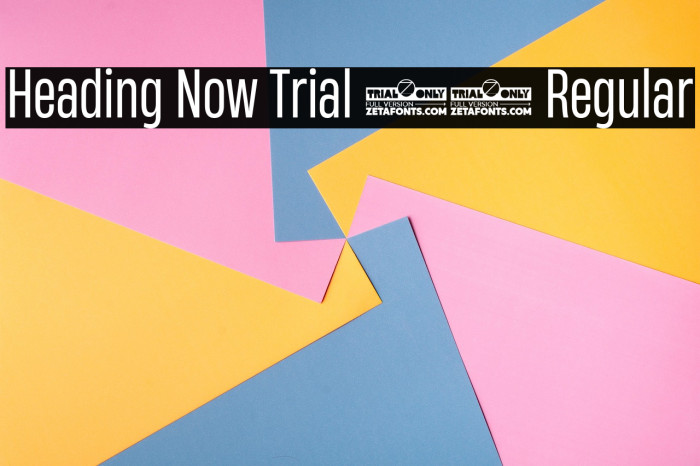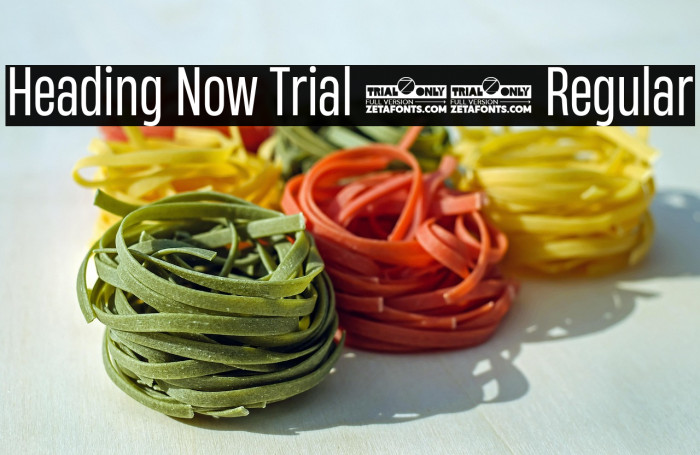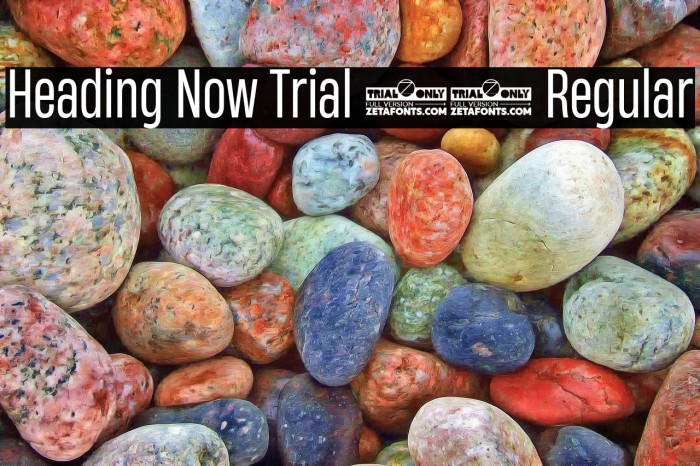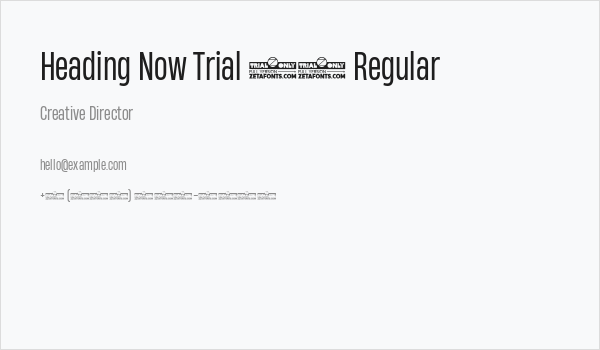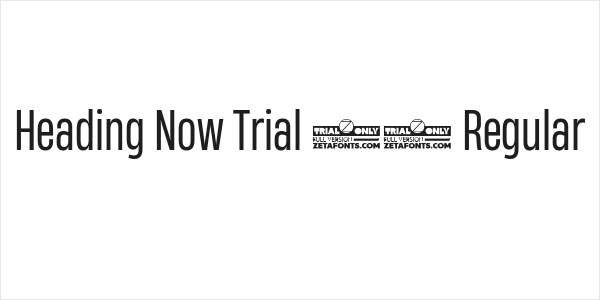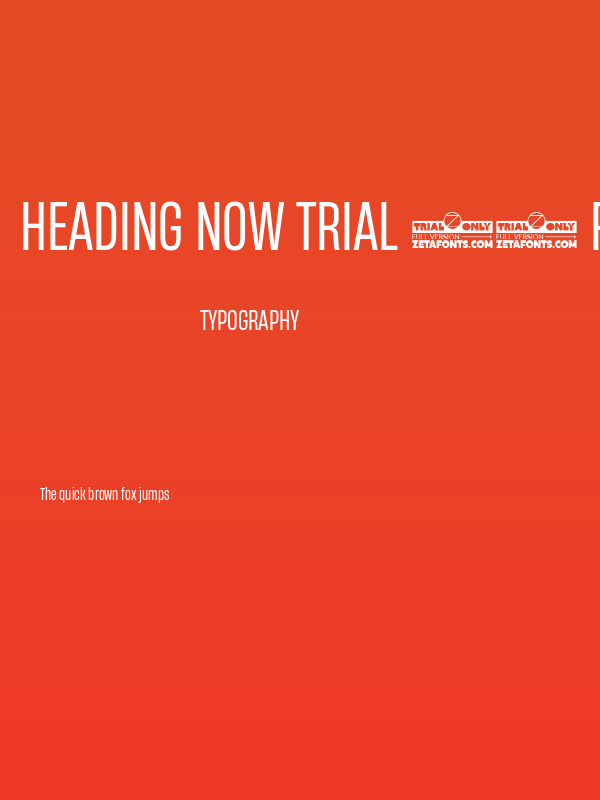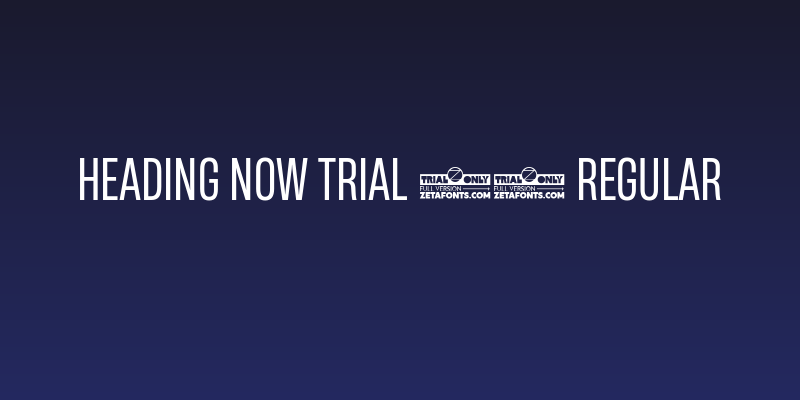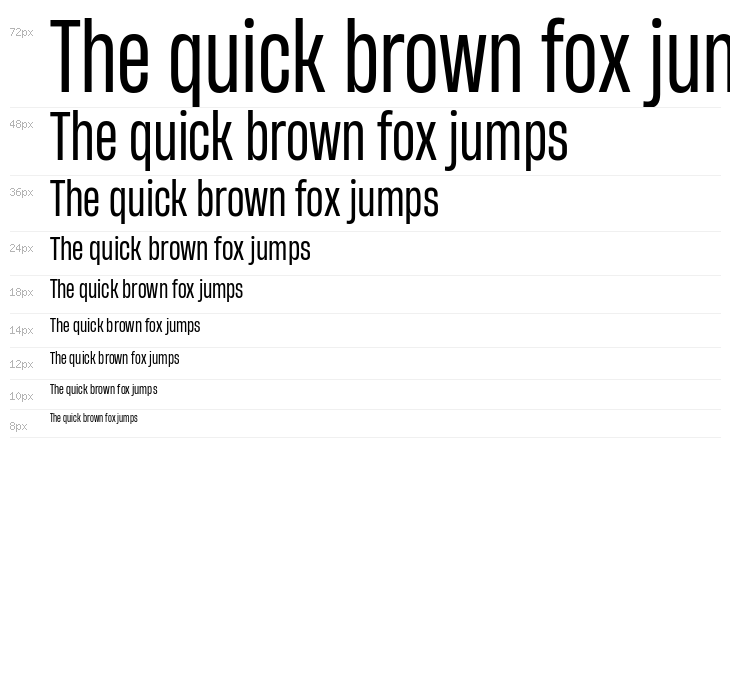
Heading Now Trial 44 Regular Font
Heading Now Trial 44 Regular Description
This font features a clean, modern sans-serif design with tall, narrow letterforms. The characters are uniform in width, contributing to a cohesive and streamlined appearance. The uppercase and lowercase letters maintain a consistent height, enhancing readability. The font includes a full set of numerals and a variety of special characters, making it versatile for different applications. Its geometric structure and minimalistic style make it suitable for contemporary design projects.
| Use Case | Headlines, Logos, Digital Interfaces |
| Proposed Projects | Ideal for use in headlines, posters, branding, and digital interfaces where a modern and sleek look is desired. |